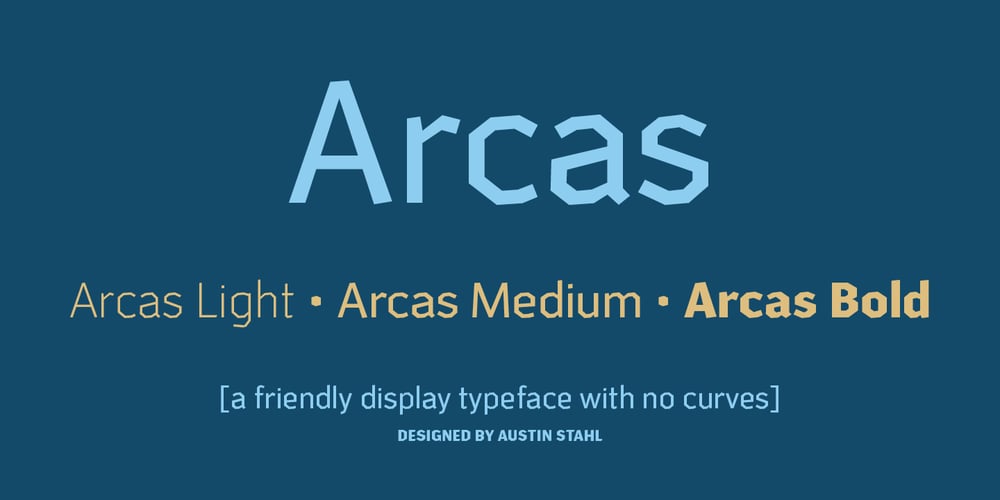
Arcas Font Family was designed by Austin Stahl and published by Austin Stahl. Arcas contains 3 styles and family package options. Arcas is a display sans with no curves — straight lines only. Unlike many other typefaces with this characteristic, however, it’s built with some asymmetry, which helps it expand beyond the “sports” or “tech” feel that many of those fonts have. Instead, it’s a surprisingly warm and friendly family, ready to lend a unique personality to headlines, posters, and packaging. Supports a wide array of Latin-script languages. OpenType features include ordinals, arbitrary fractions, and case-sensitive punctuation. A set of catchwords is also included.